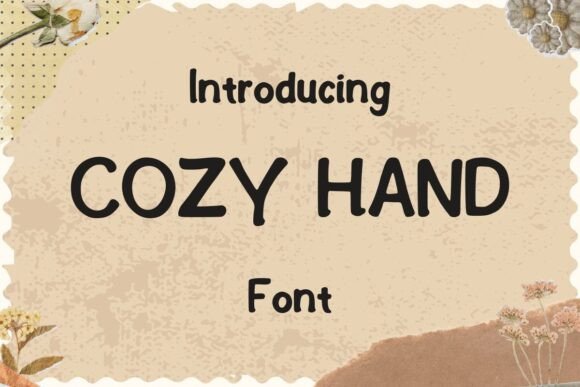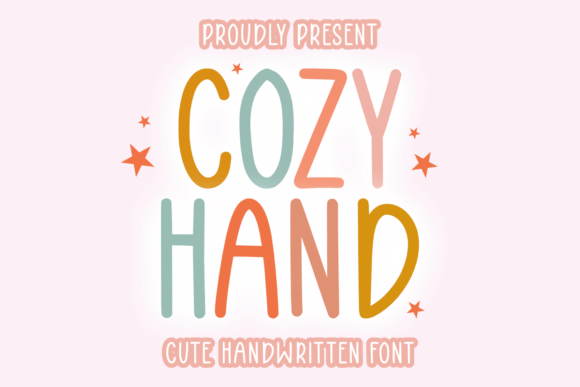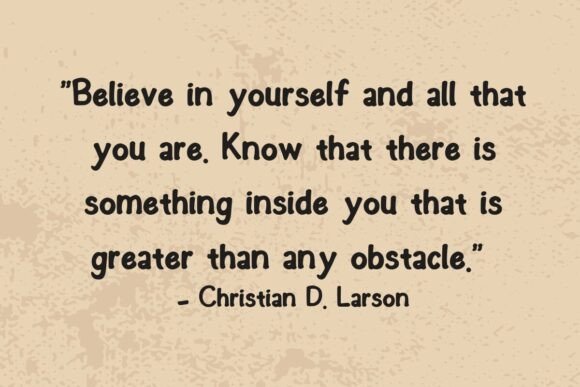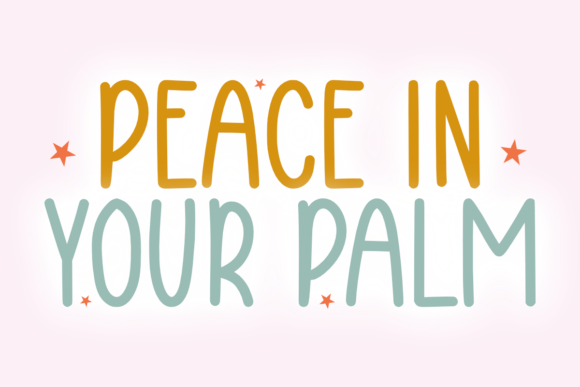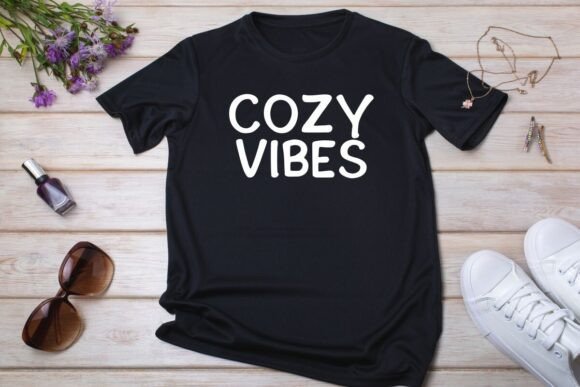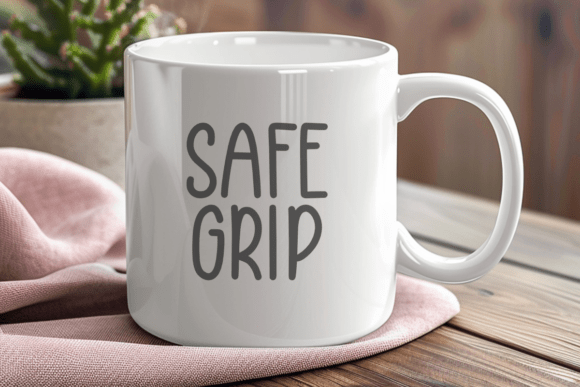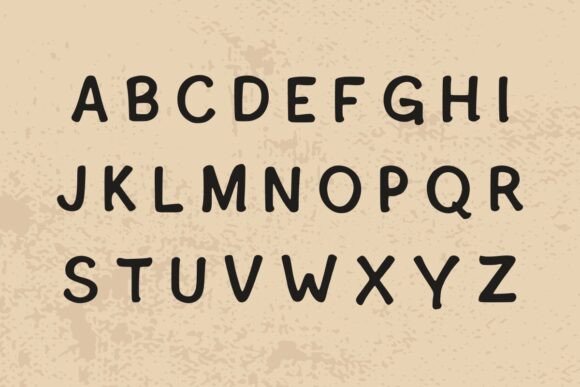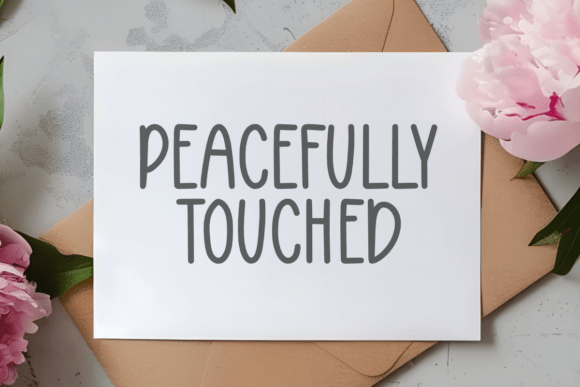
Cozy Hand Font: A Cute Handwritten Font for Playful DIY & Social Media Design
About the Cozy Hand Font
Elevate your designs with Cozy Hand Font, a font that combines sophistication with readability. Cozy Hand is a warm and inviting handwritten font that combines a playful charm with a casual elegance. Featuring smooth, rounded strokes and a slightly imperfect touch, this font mimics natural handwriting, making it perfect for projects that need a friendly, personal feel. Whether you’re designing greeting cards, branding elements, social media posts, or children’s book titles, Cozy Hand adds a sense of authenticity and warmth.
Cozy Hand excels in projects requiring a friendly, approachable aesthetic. Ideal applications include short headlines, branding for artisanal products, social media graphics, and children’s book titles. Its informal nature makes it unsuitable for large blocks of body text or UI elements where readability is paramount.
Pairing Cozy Hand with a clean sans-serif like Lato or Open Sans provides a strong contrast, balancing its handwritten charm with modern clarity. For a more playful feel, consider pairing it with a rounded geometric sans-serif such as Poppins. A classic serif like Garamond could also create a sophisticated yet approachable combination.
The font’s overall personality is best described as friendly and approachable, conveying warmth and authenticity without sacrificing legibility in short applications.